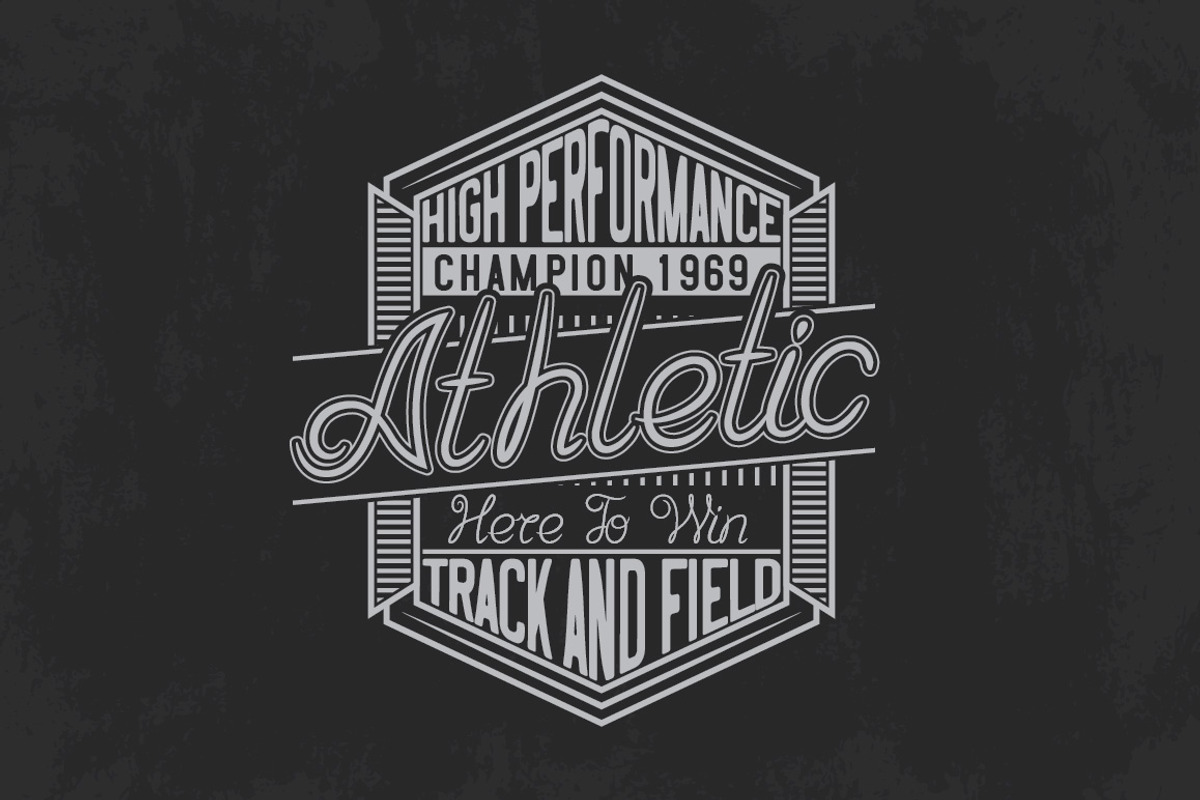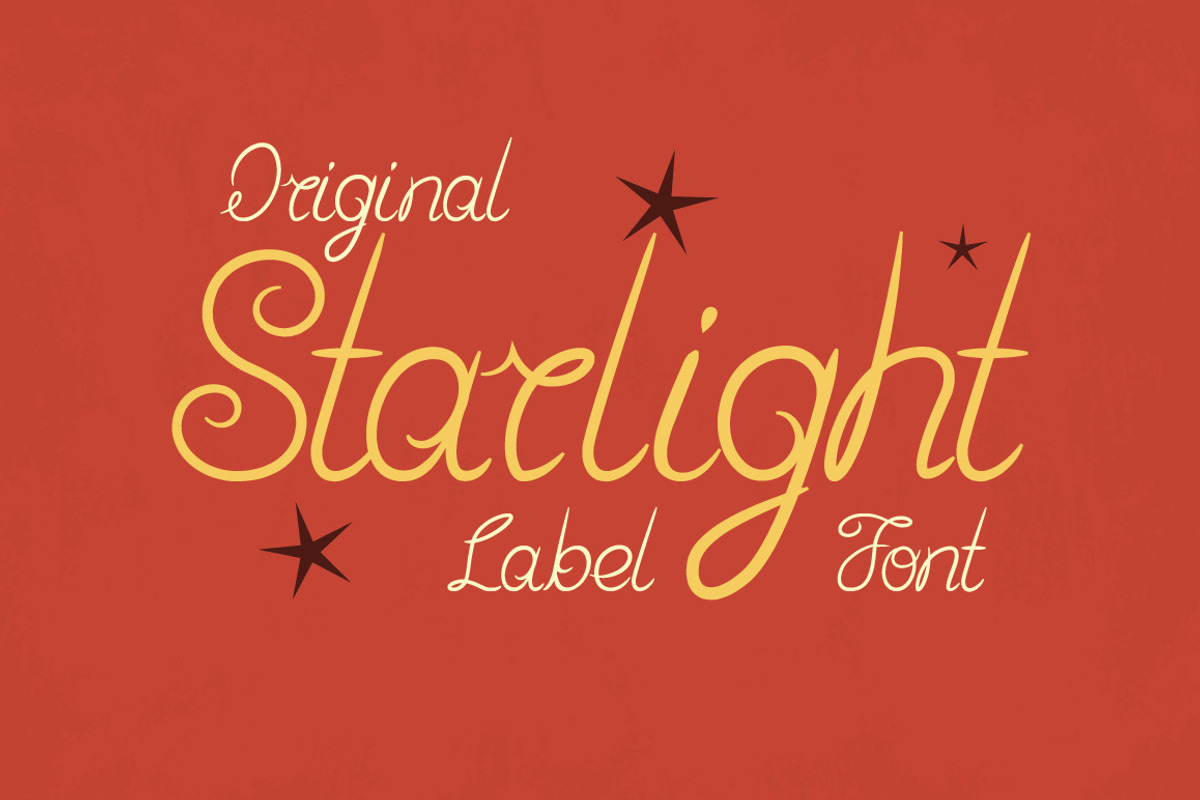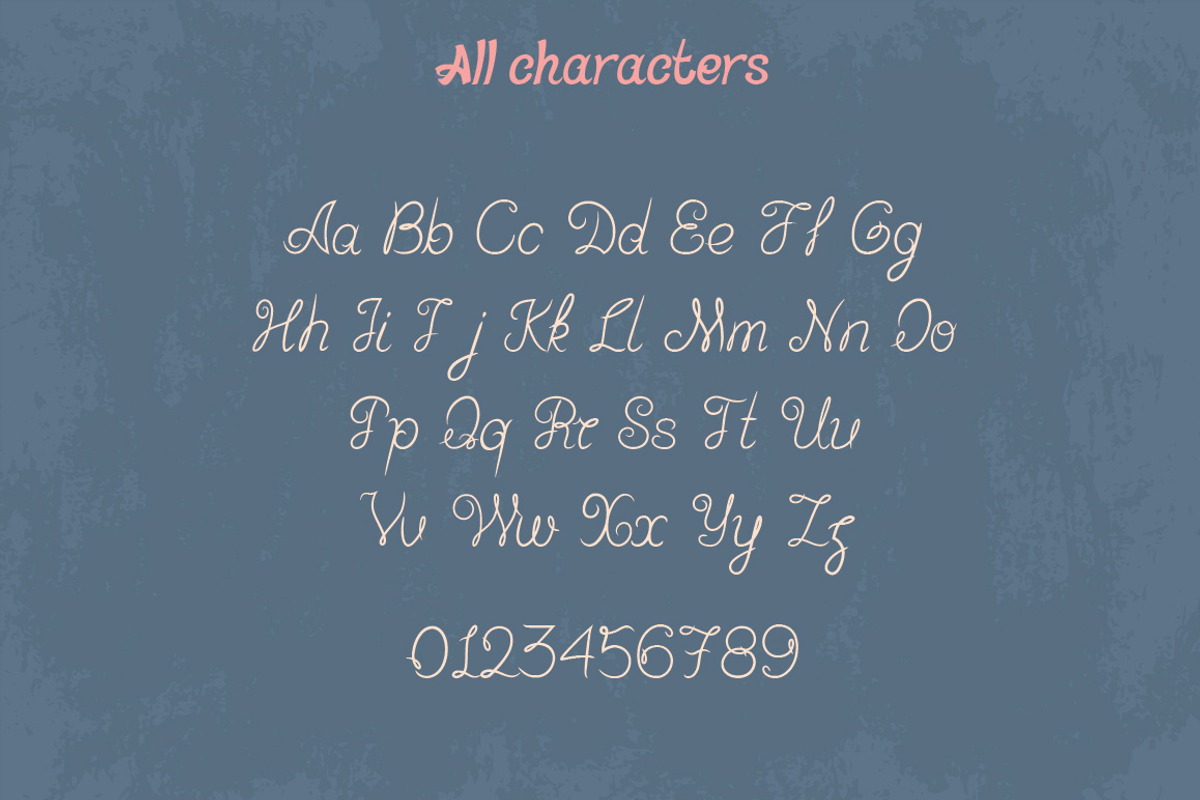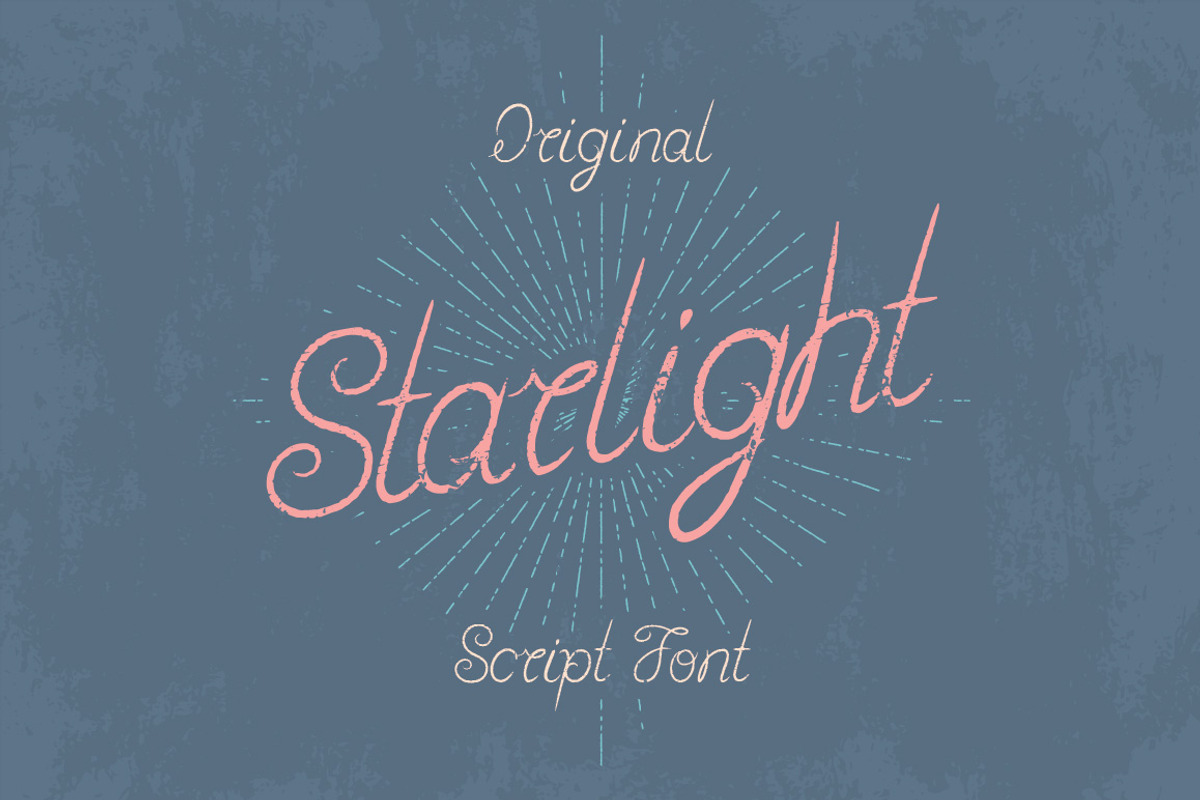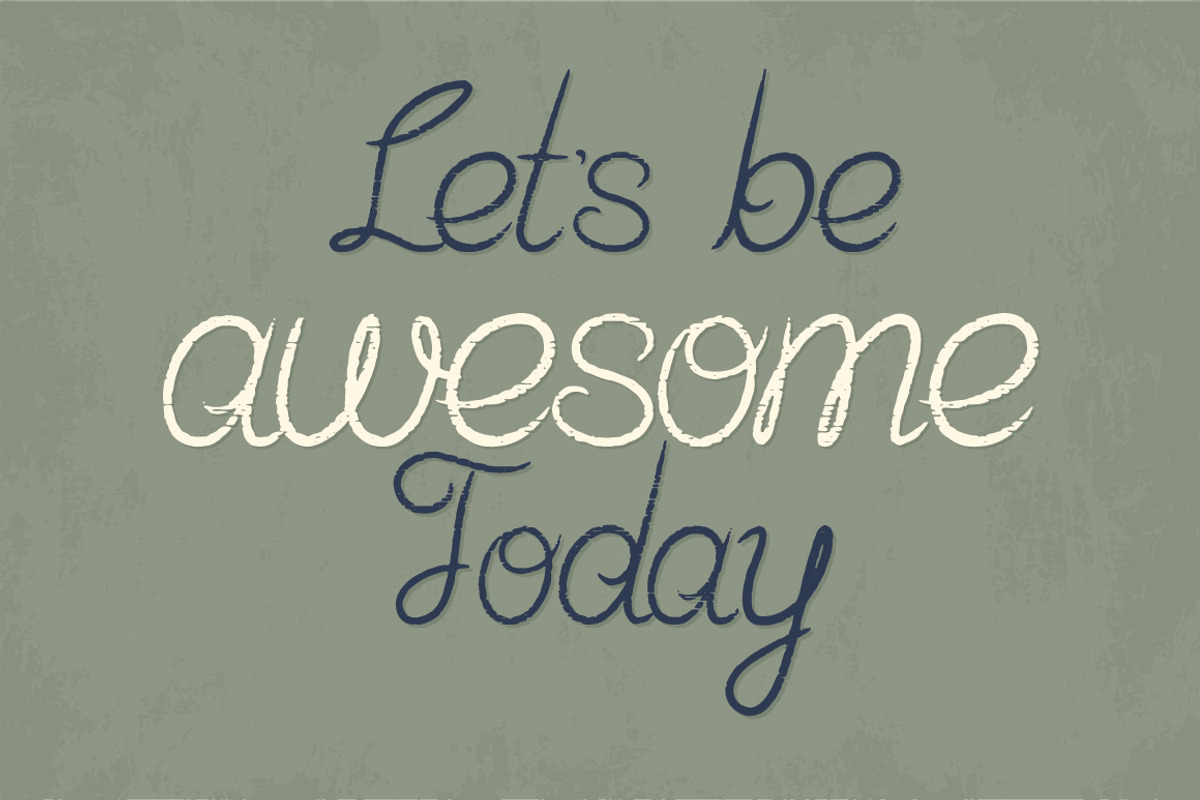
Starlight Typeface
Hello! Presenting a handwritten style label font named "Starlight". It comes in two styles - clean and aged version.
- Starlight Regular
- Starlight Aged